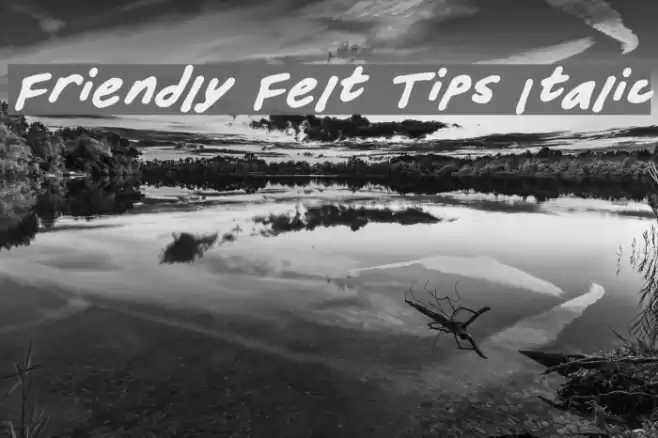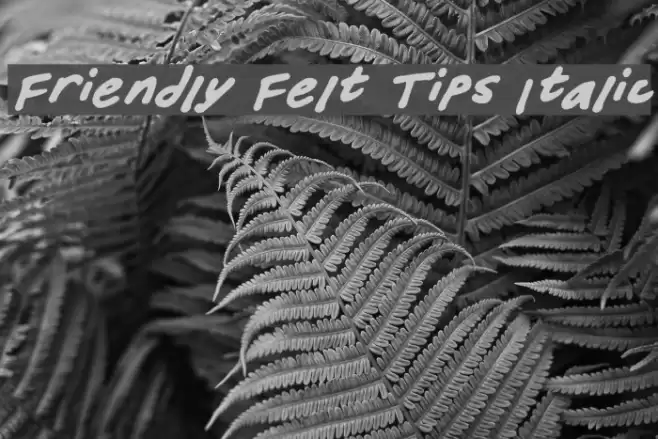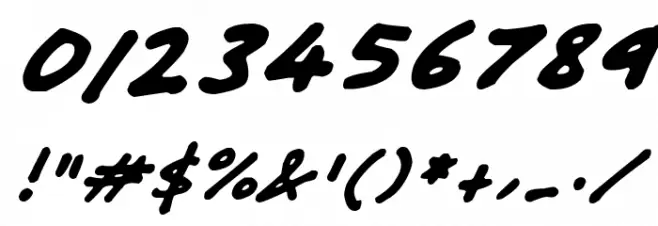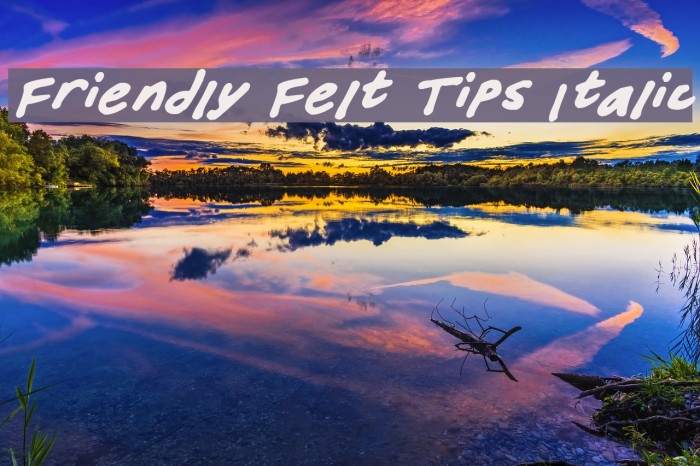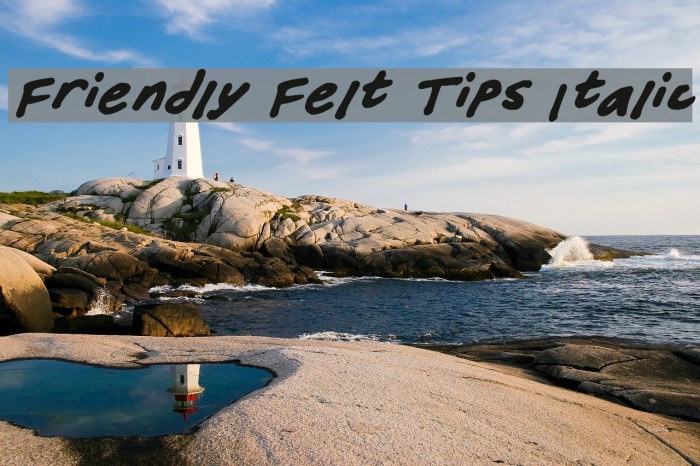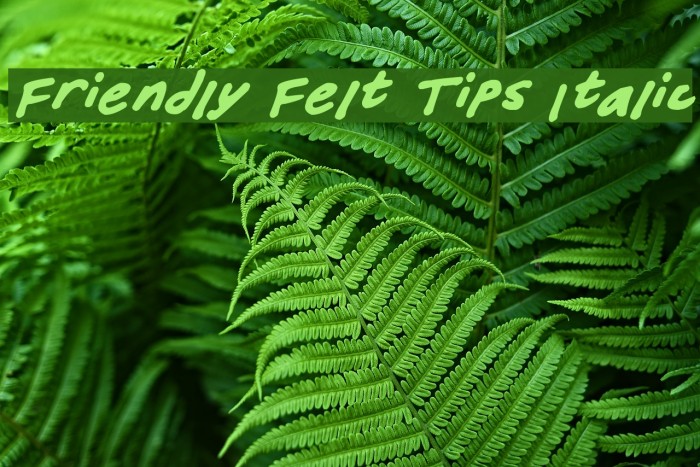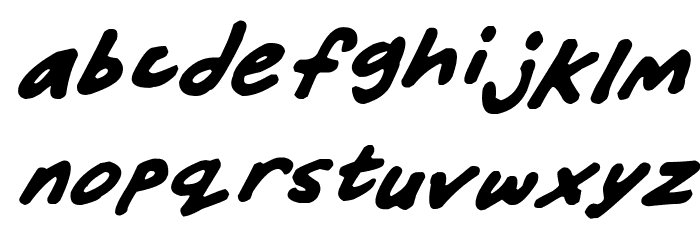
Friendly Felt Tips Italic Font
Friendly Felt Tips Italic Description
This font exudes a playful and casual vibe, reminiscent of handwritten notes with a felt-tip pen. The characters are bold and slightly slanted, giving an informal and friendly appearance. The strokes are smooth and rounded, with a consistent thickness that maintains readability while adding a touch of whimsy. The uppercase and lowercase letters are well-proportioned, and the numerals are clear and distinct. Special characters are included, maintaining the same playful style. This font is ideal for projects that require a personal touch or a relaxed, approachable feel.
A playful, handwritten-style font with bold, smooth strokes and a casual vibe from Handwritten fonts.
- Proposed Projects: Ideal for greeting cards, children's books, casual branding, and social media graphics.
- Overall Style: Casual
- Use Case: Headlines, Logos, Informal Text